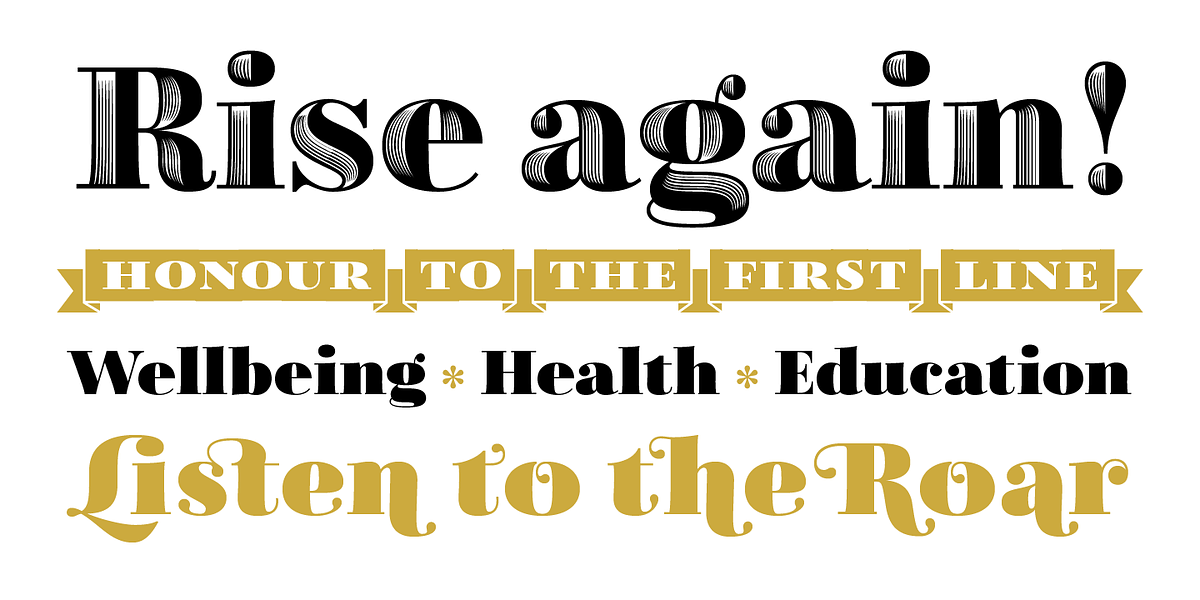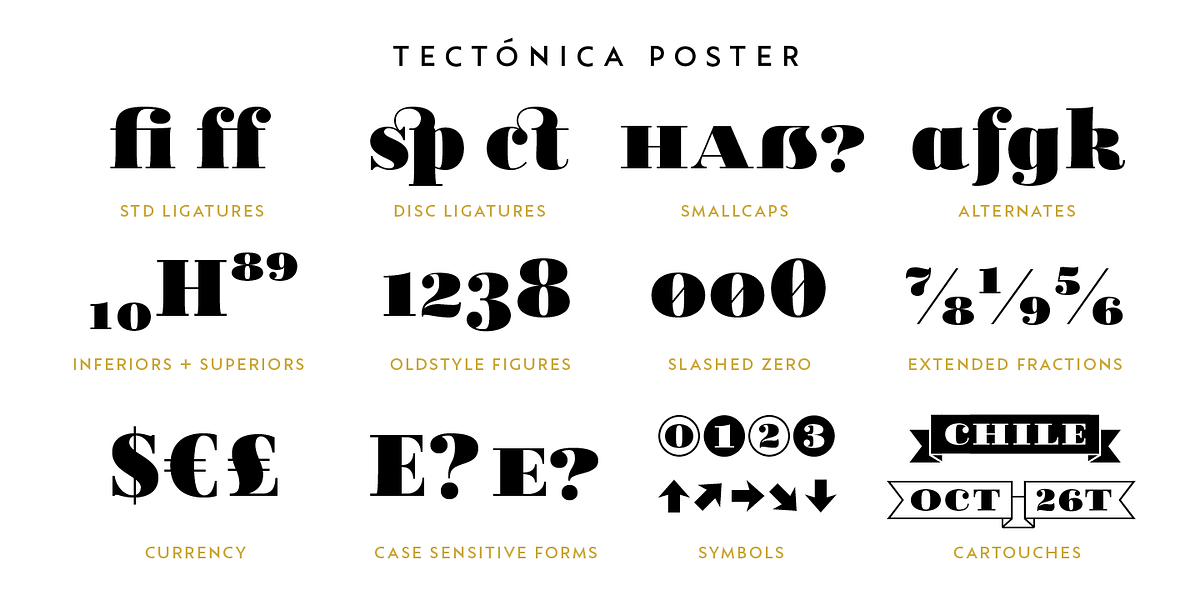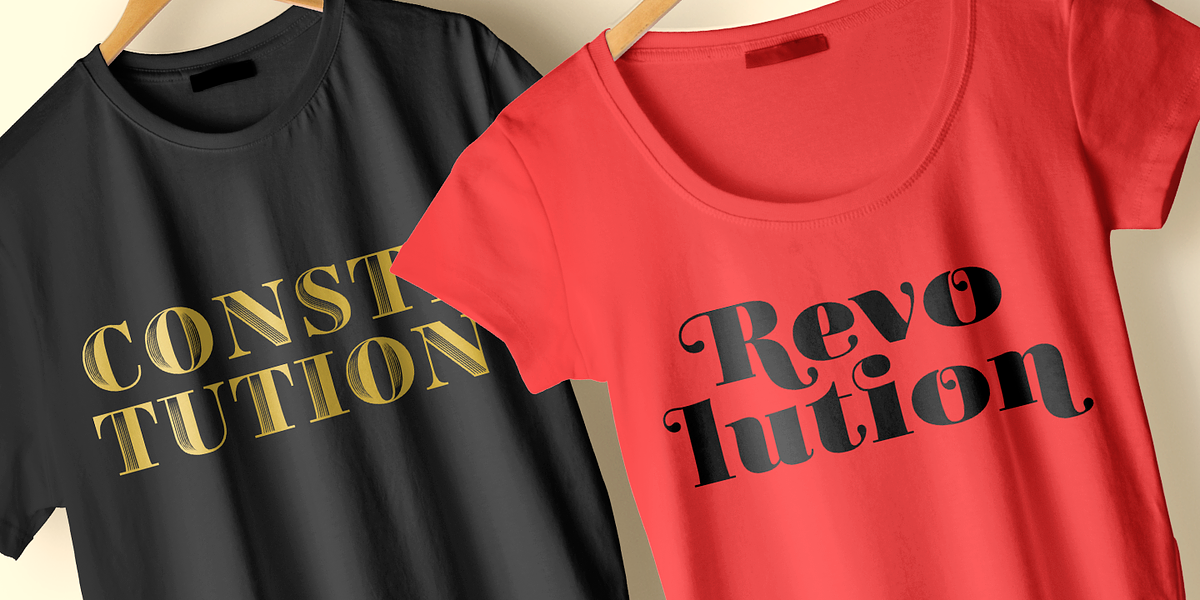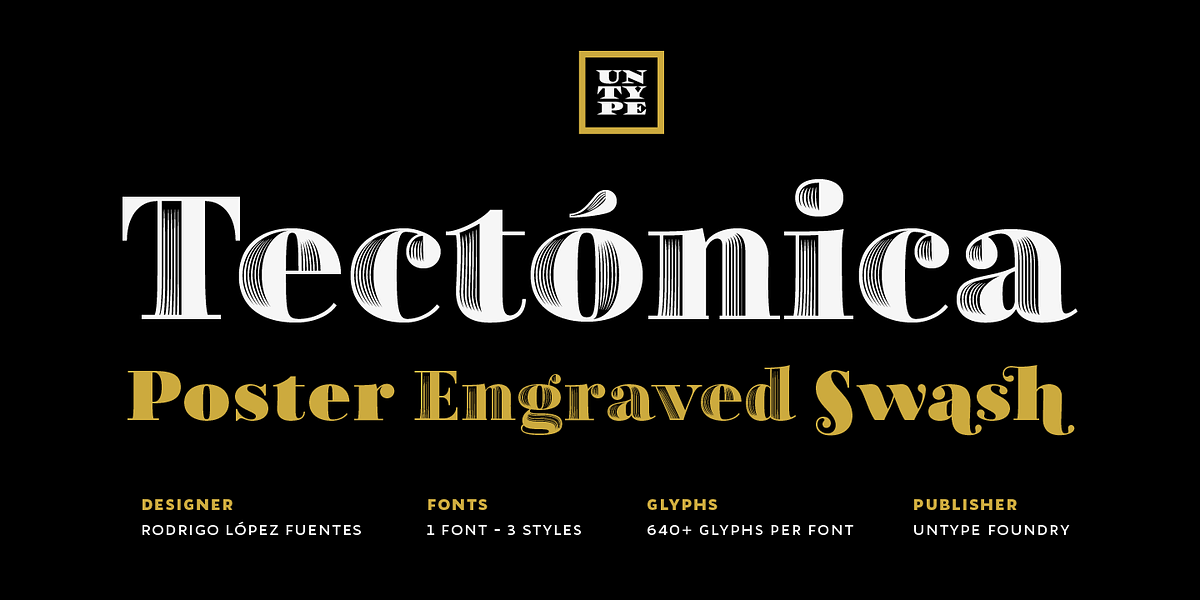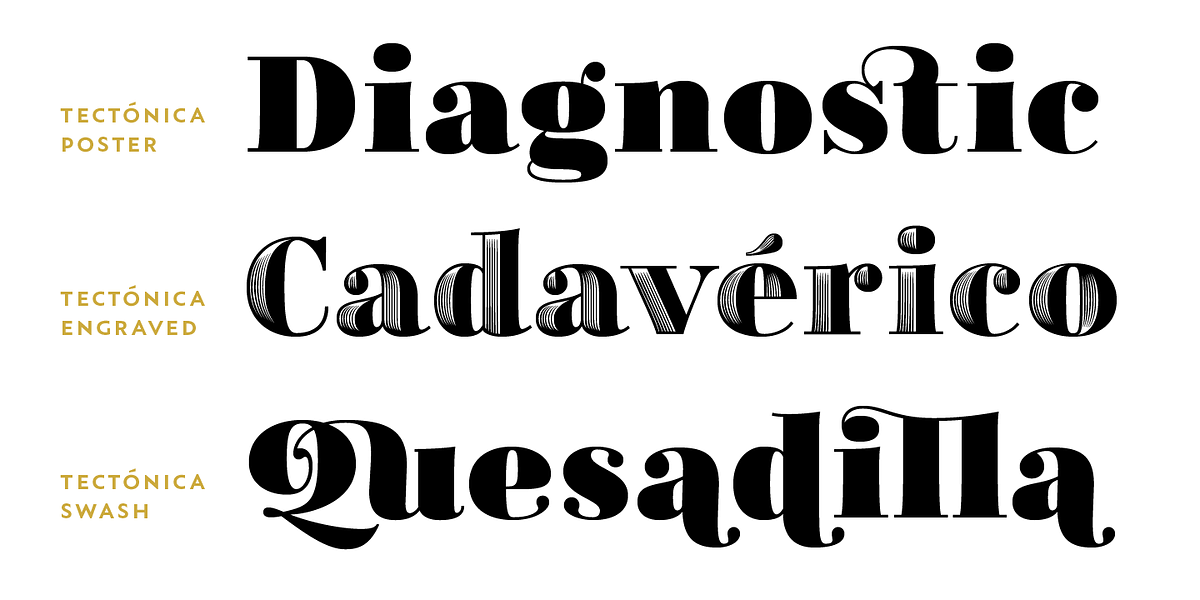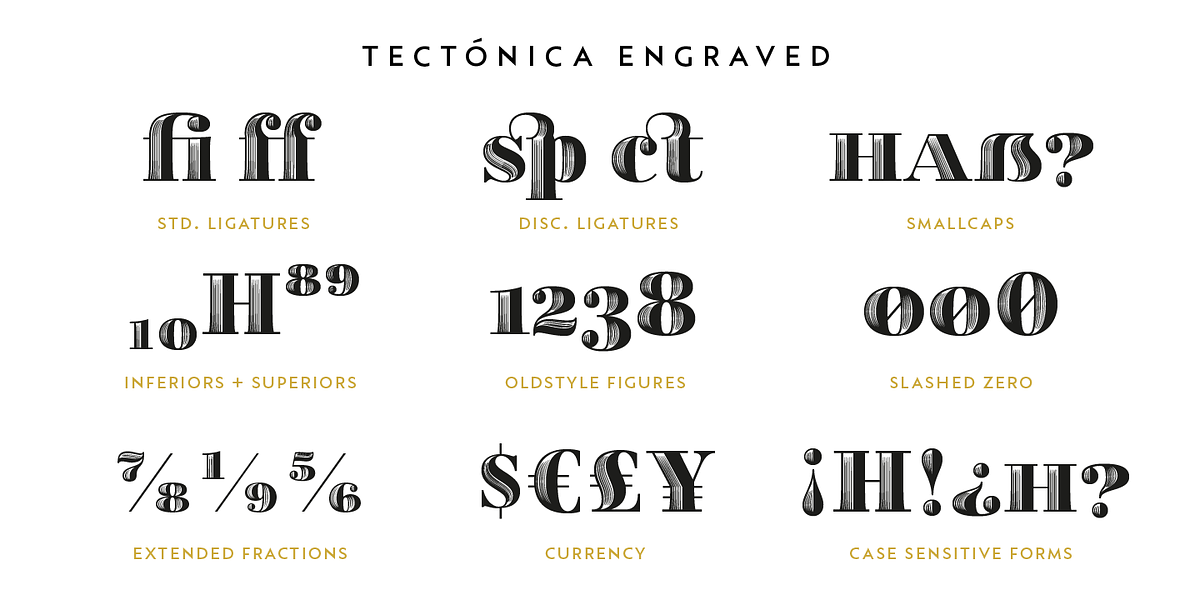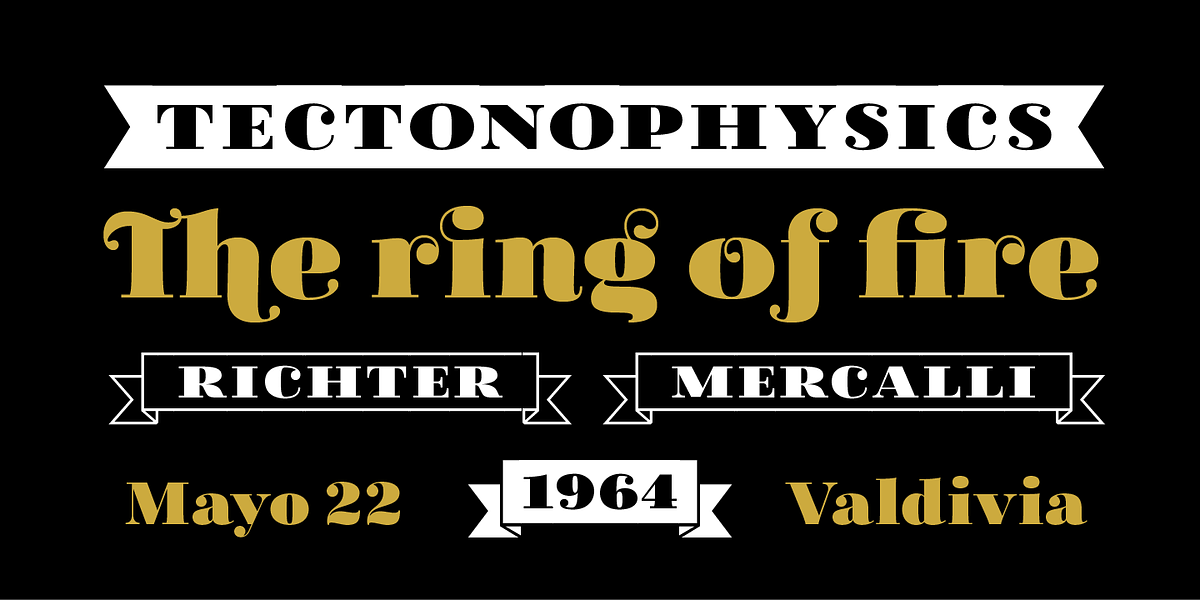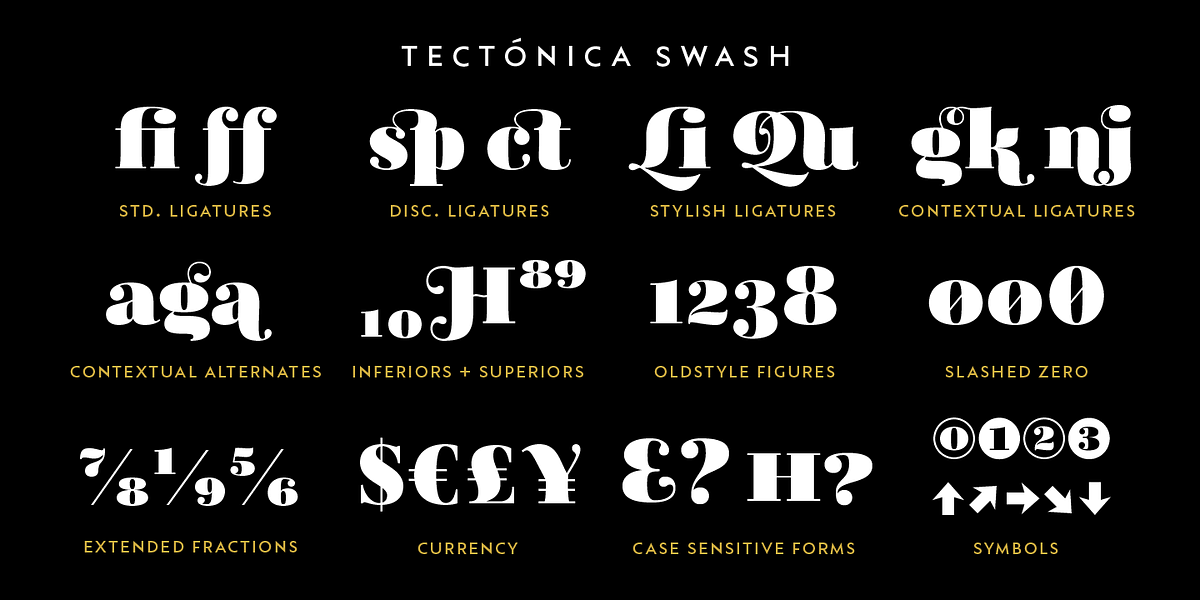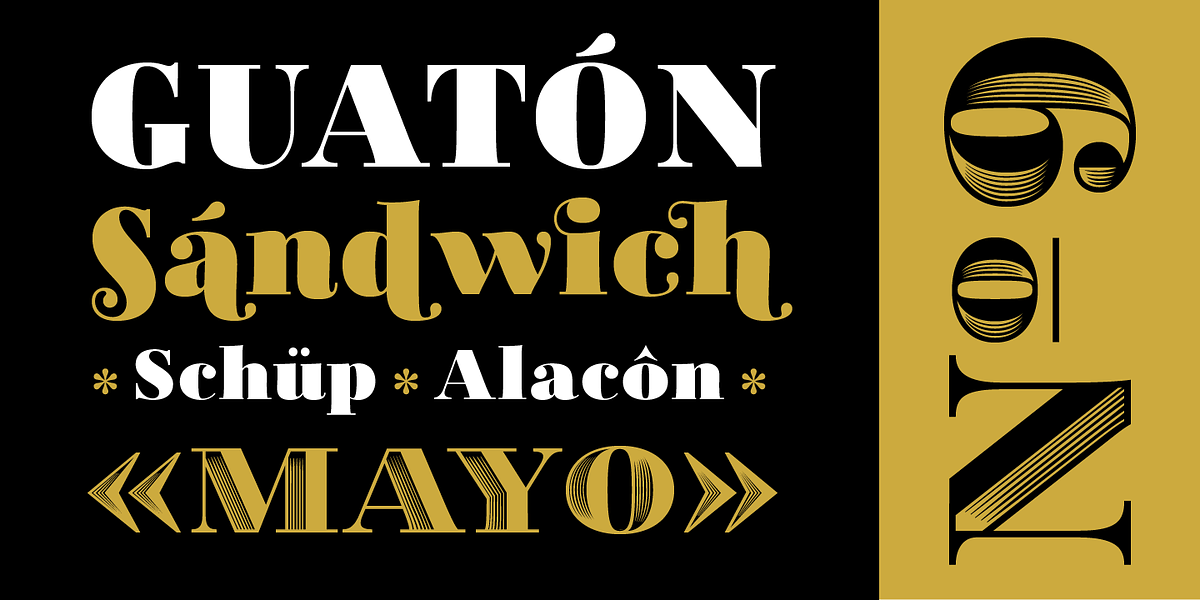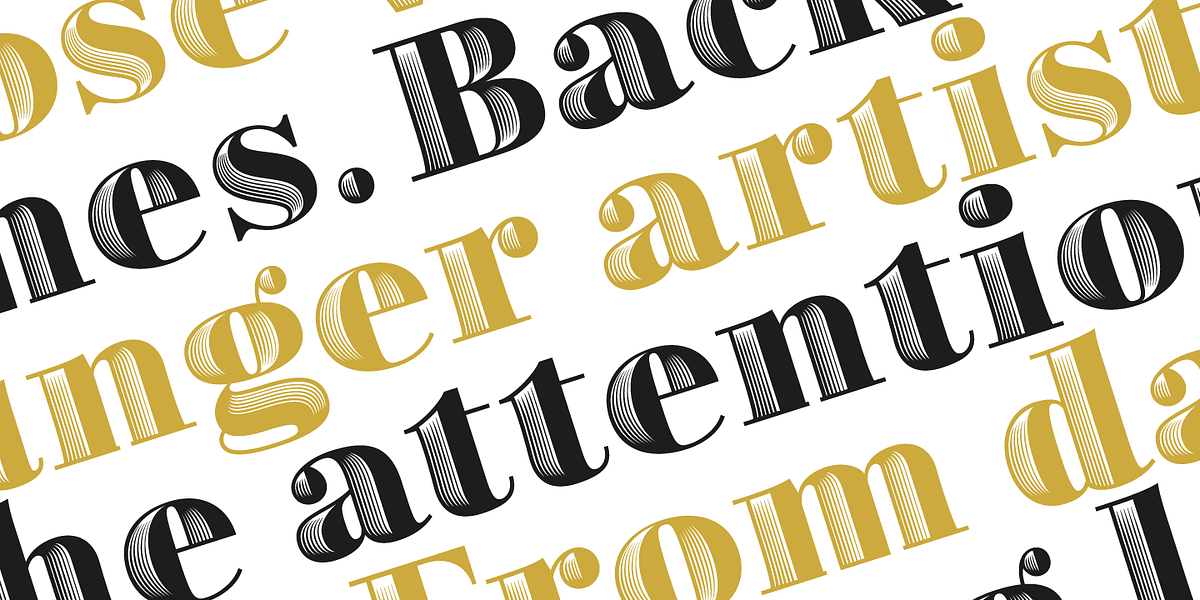
Tectónica
Tectónica is a heavy-duty didone serif typeface characterized by its strong presence and high contrast. It features delicate details and variations, making it suitable for headings, logotypes, and large text settings. The font comes in three styles: Poster, Engraved, and Swash, each with distinct characteristics. Tectónica also includes alternates, ligatures, and various numbers.